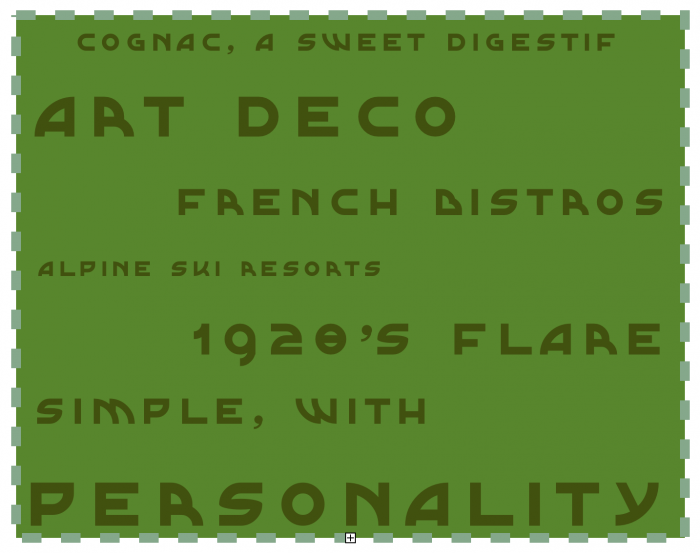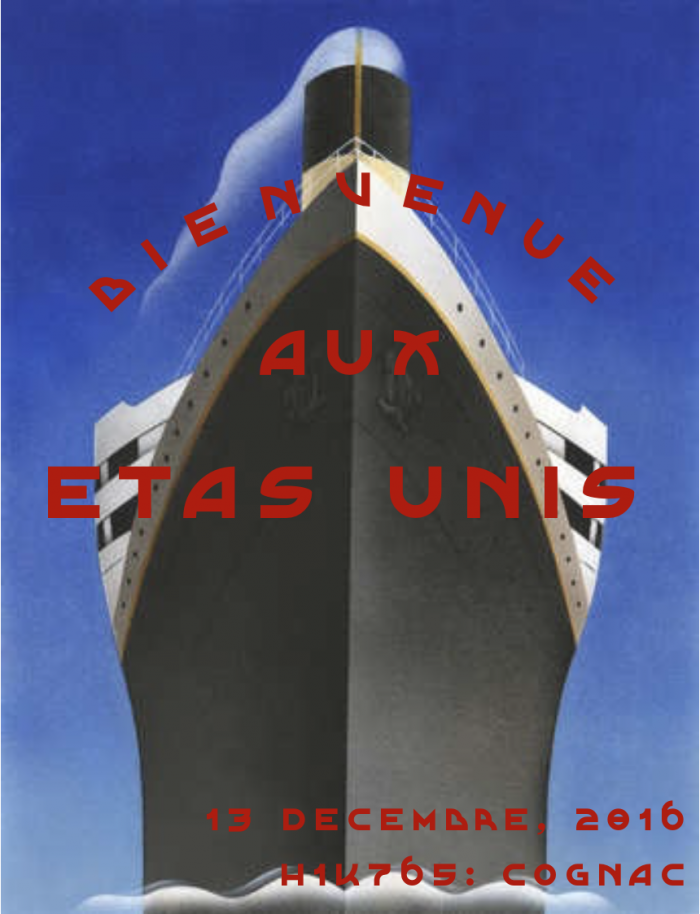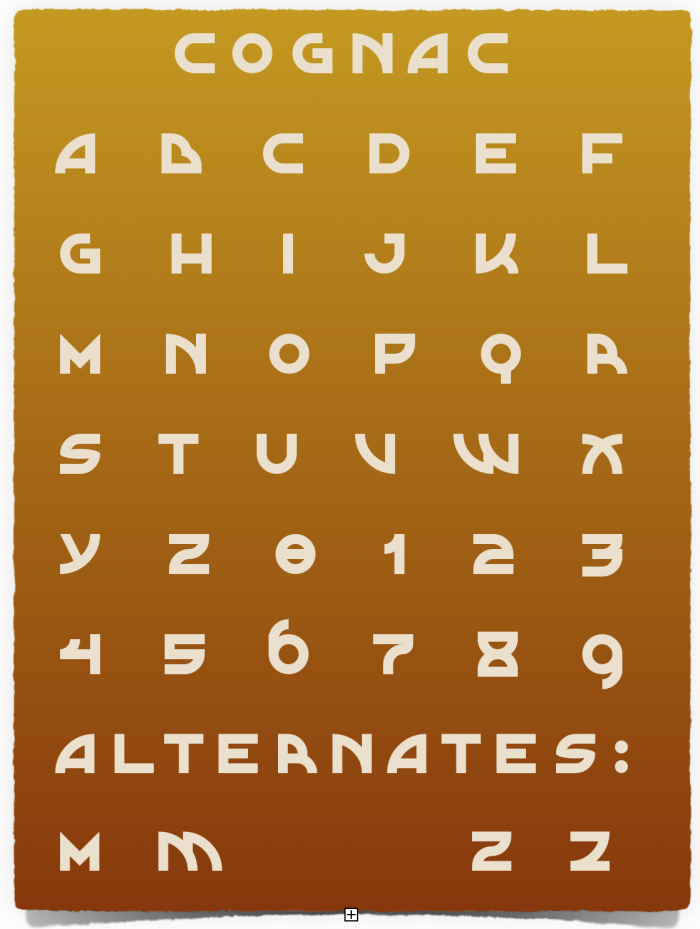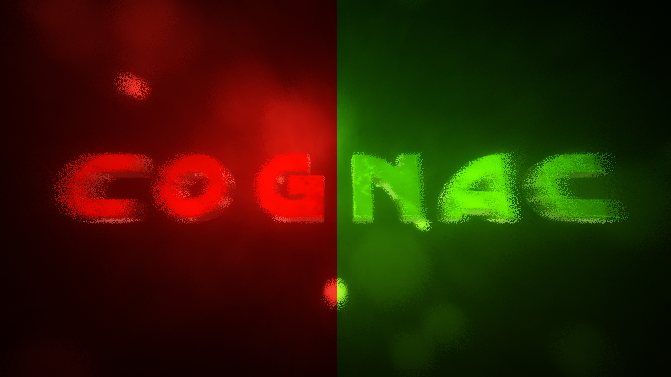
This is a simple experiment that I have fallen in love with. I will take all suggestions as it is imperfect.
It's great. I love the B but it is a bit ambiguous- I read “Distro” instead of ”Bistro”. I can’t think of a better solution for it though.
@meek It is "Bistros"
Gorgeous ... a great addition to anglophone Art Deco fonts. Congratulations on the TP :) For the B, would a 1/2 or 1/3 brick extension to the center 'horizontal' work?
Perfect modernization of art deco. The alternatives are good.
I made a 3D image of it I hope you like it :)
Pertaining to your current "B" [yes, 'distro' is to be avoided!], adding an ascender could not help itself… even a descender.
After many moves (in bitmap, because we'd need to try with your blocks directly), IMO a fair solution was to add a splitting.
B.t.w. your "S" has too modified or complex curves, in comparison to the rest; it might be splittable too, ditto e.g. "869X"…
@Brenda: 'bistros' is the plural of 'bistro'^^
@h1k765: were you tipsy while you wrote 'ETAS UNIS'? ('États-Unis') If yes, stop fontsdrinking this Cognac immediately…^^
@Future FG Gaming: precisely… *hic!*^^